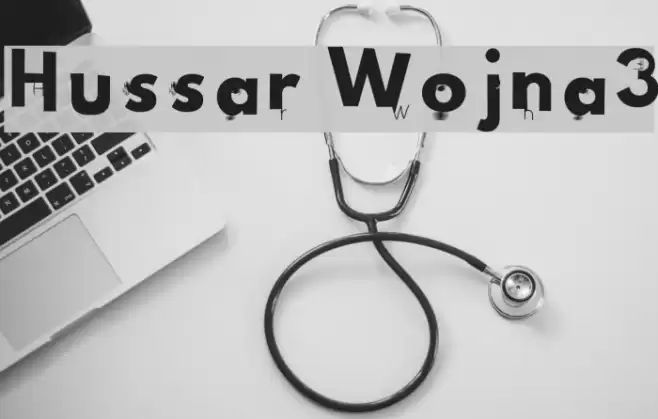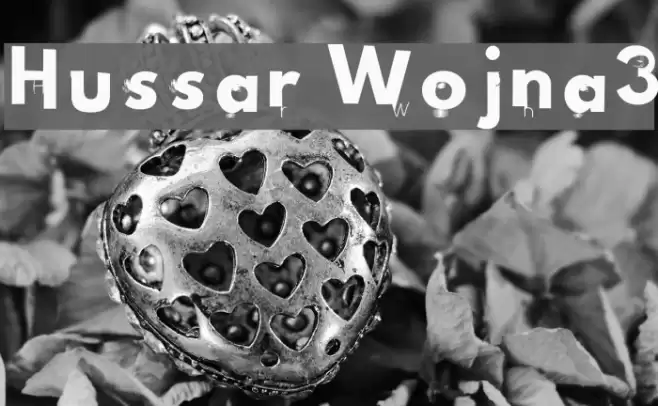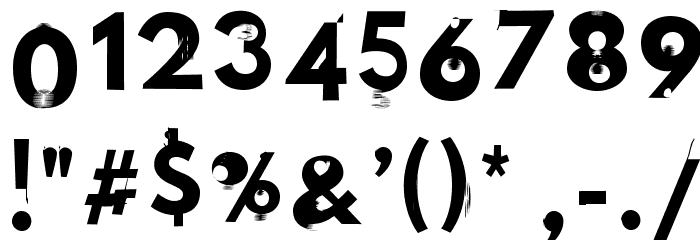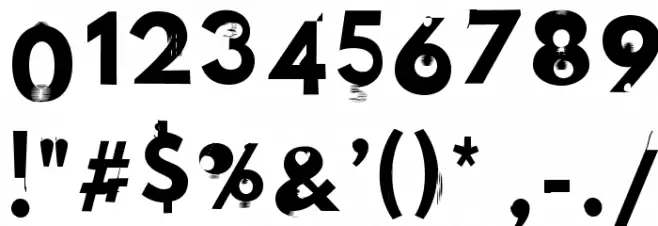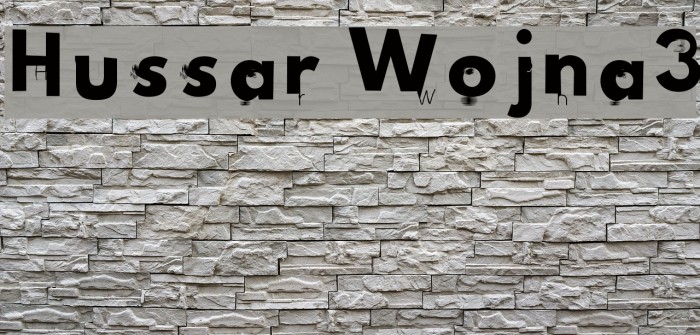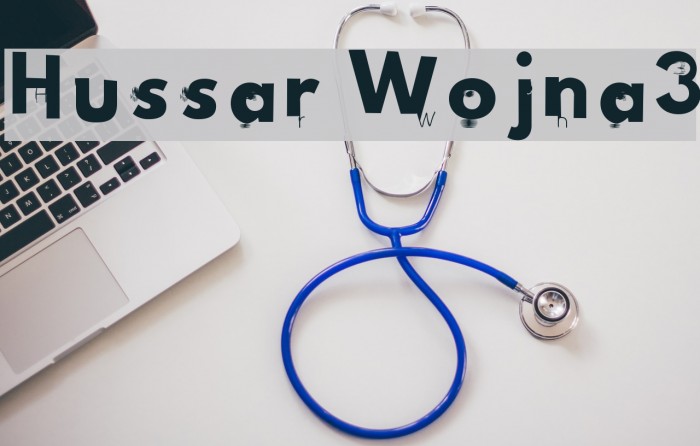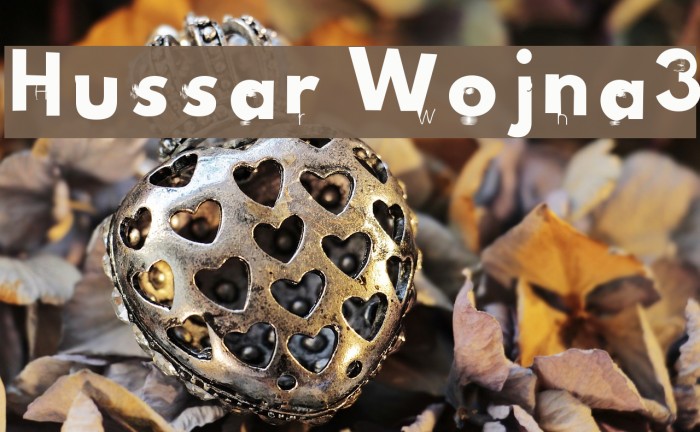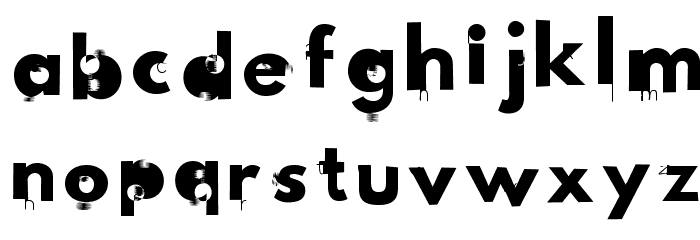
Hussar Wojna3 Font
Hussar Wojna3 Description
This font features a bold and striking design with a distressed, grunge-like texture that adds a unique, edgy character to each letter. The uppercase and lowercase letters maintain a consistent weight, providing a strong visual impact. The numbers and special characters follow the same stylistic approach, ensuring uniformity across all glyphs. The font's boldness and texture make it ideal for projects that require a standout, artistic touch. Its distinct appearance is suitable for creative designs, such as posters, album covers, or branding that seeks to convey a sense of rebellion or nonconformity.
A bold, distressed font with a grunge texture, perfect for artistic and standout designs from Uncategorized fonts.